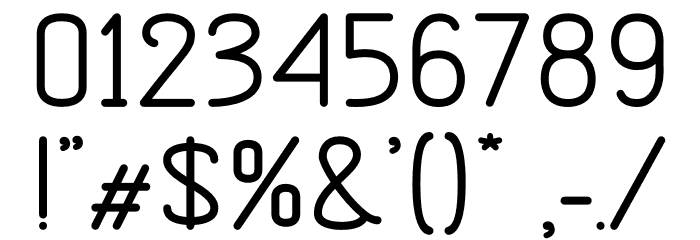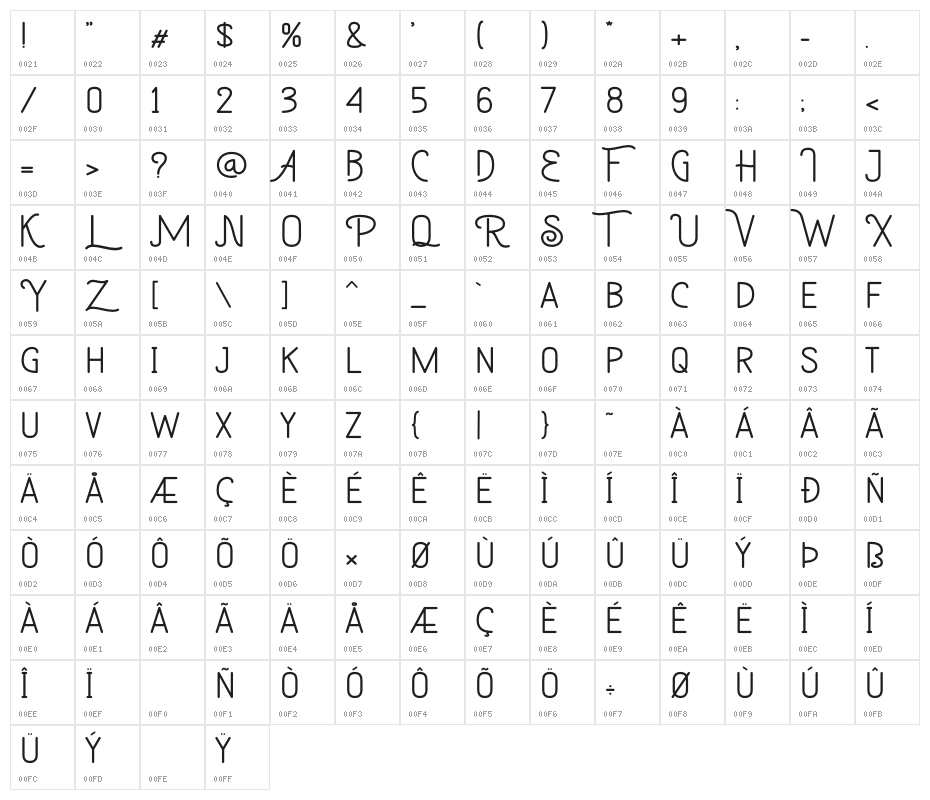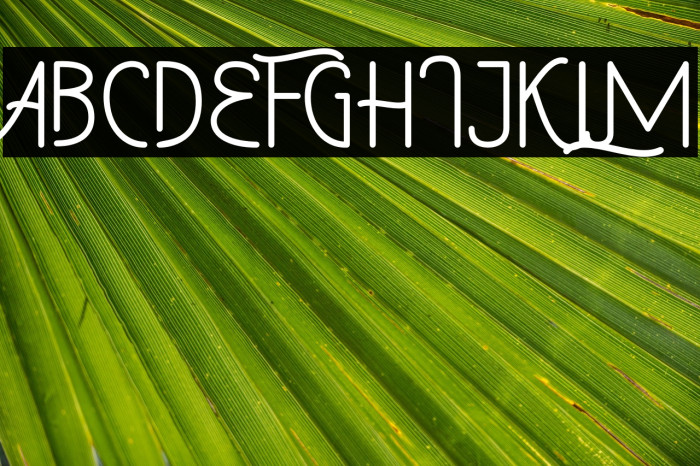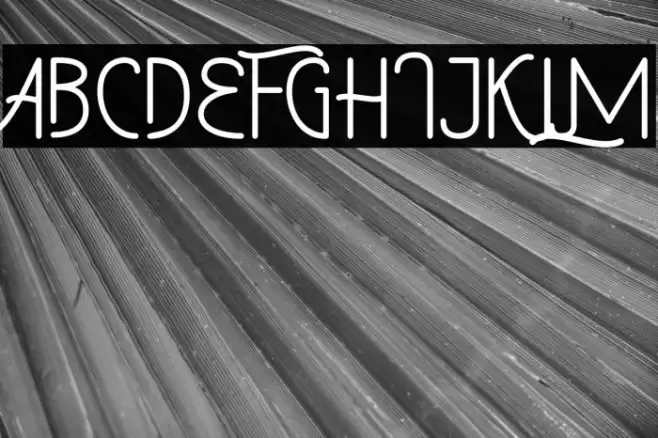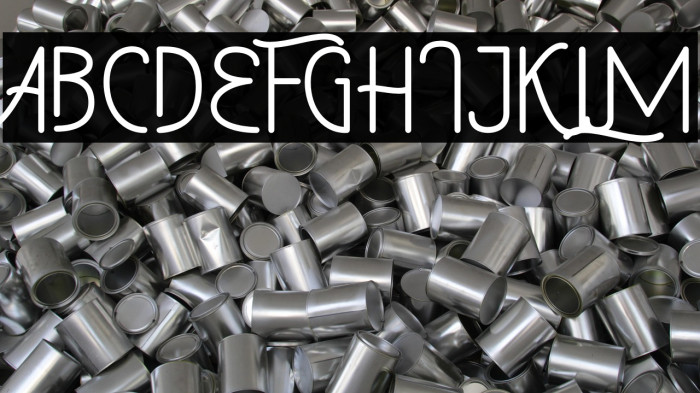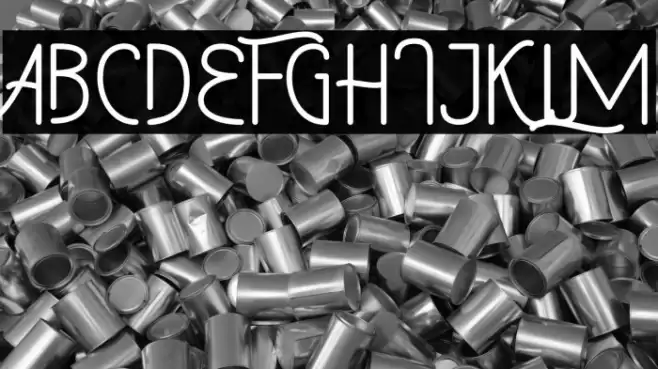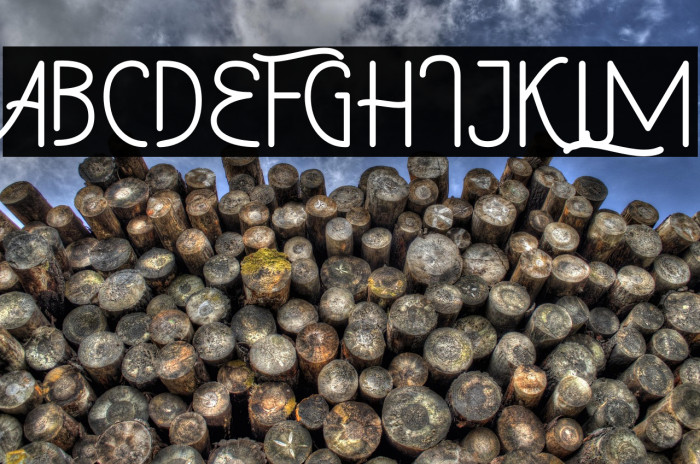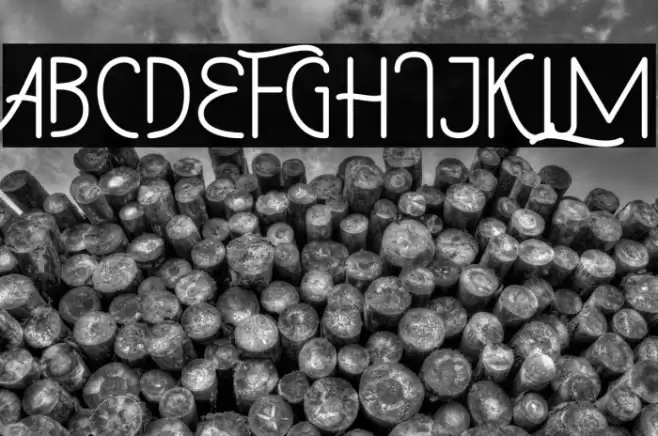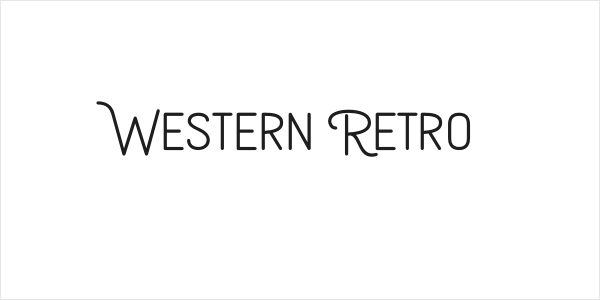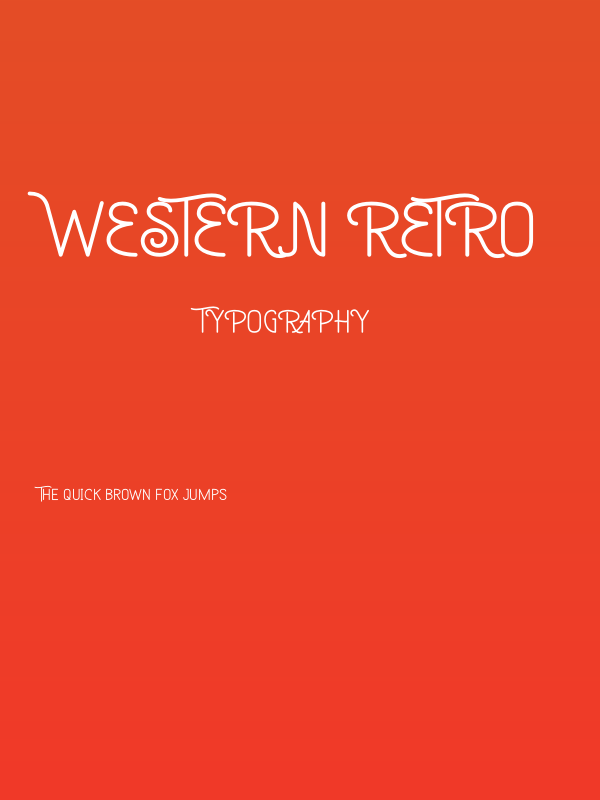
Western Retro Font
Western Retro Description
This font features a unique blend of Western and retro styles, characterized by its decorative and playful elements. The uppercase letters exhibit a distinct flair with swashes and curls, particularly noticeable in characters like 'A', 'B', and 'R'. The lowercase letters maintain a more straightforward design, providing a nice contrast to the ornate uppercase. The numerals are clean and easy to read, while the special characters carry the same decorative theme. Overall, this font combines elegance with a touch of whimsy, making it suitable for creative and eye-catching designs.
| Overall Style | Retro, Decorative |
| Proposed Projects | Ideal for vintage-themed posters, branding for retro-inspired products, or any design needing a playful yet elegant touch. |